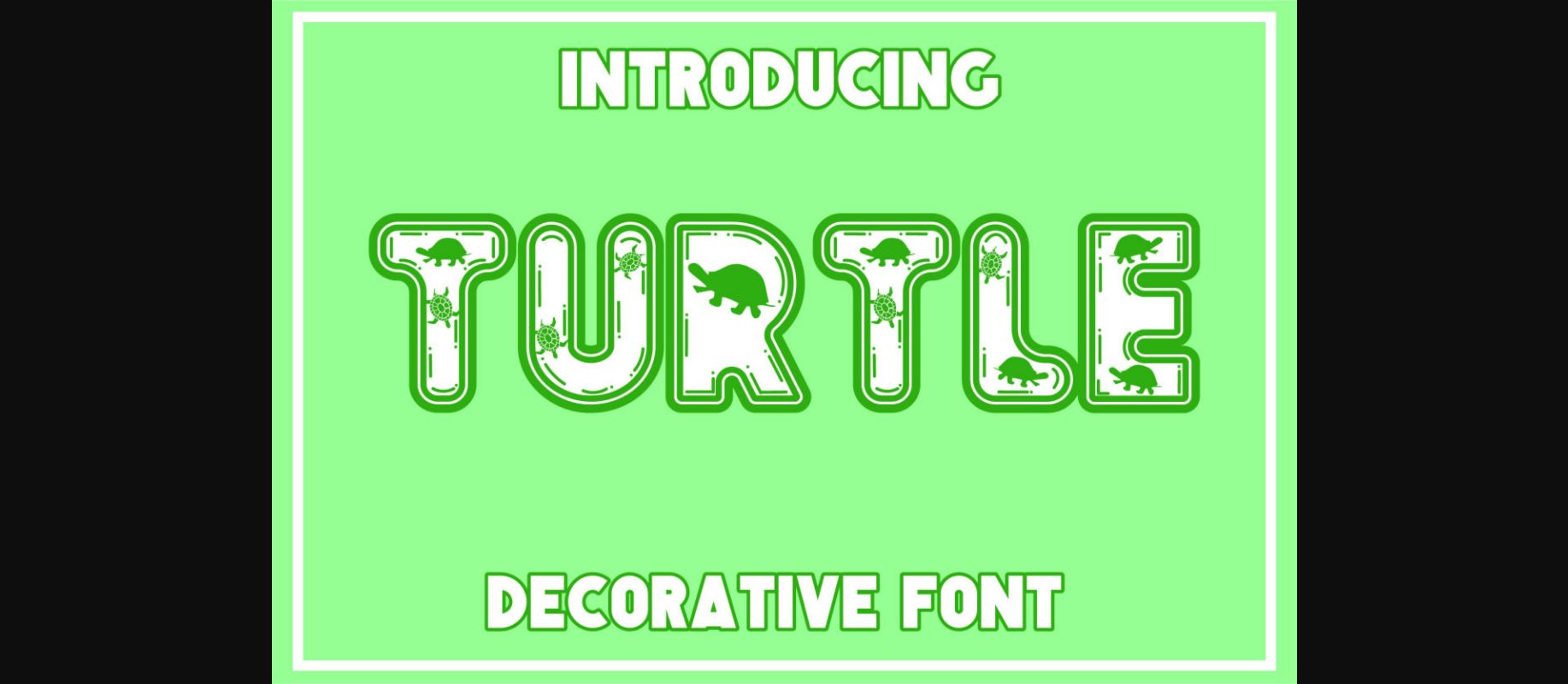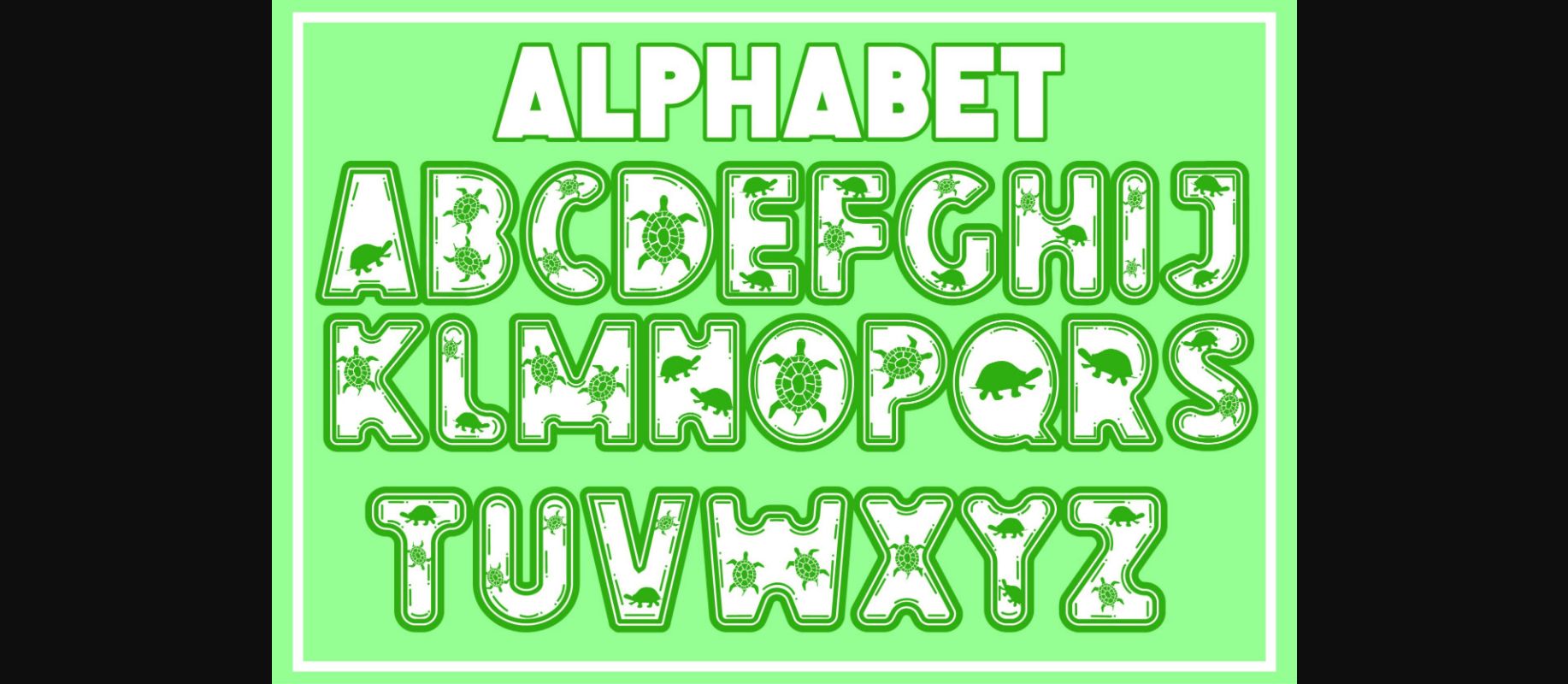
About Turtle Font
Turtle is an incredibly cool font decorated with cute little turtles. Whether you use it for custom designs, DIY crafts, or just any creation that requires a lovely touch, this font will be an amazing choice.